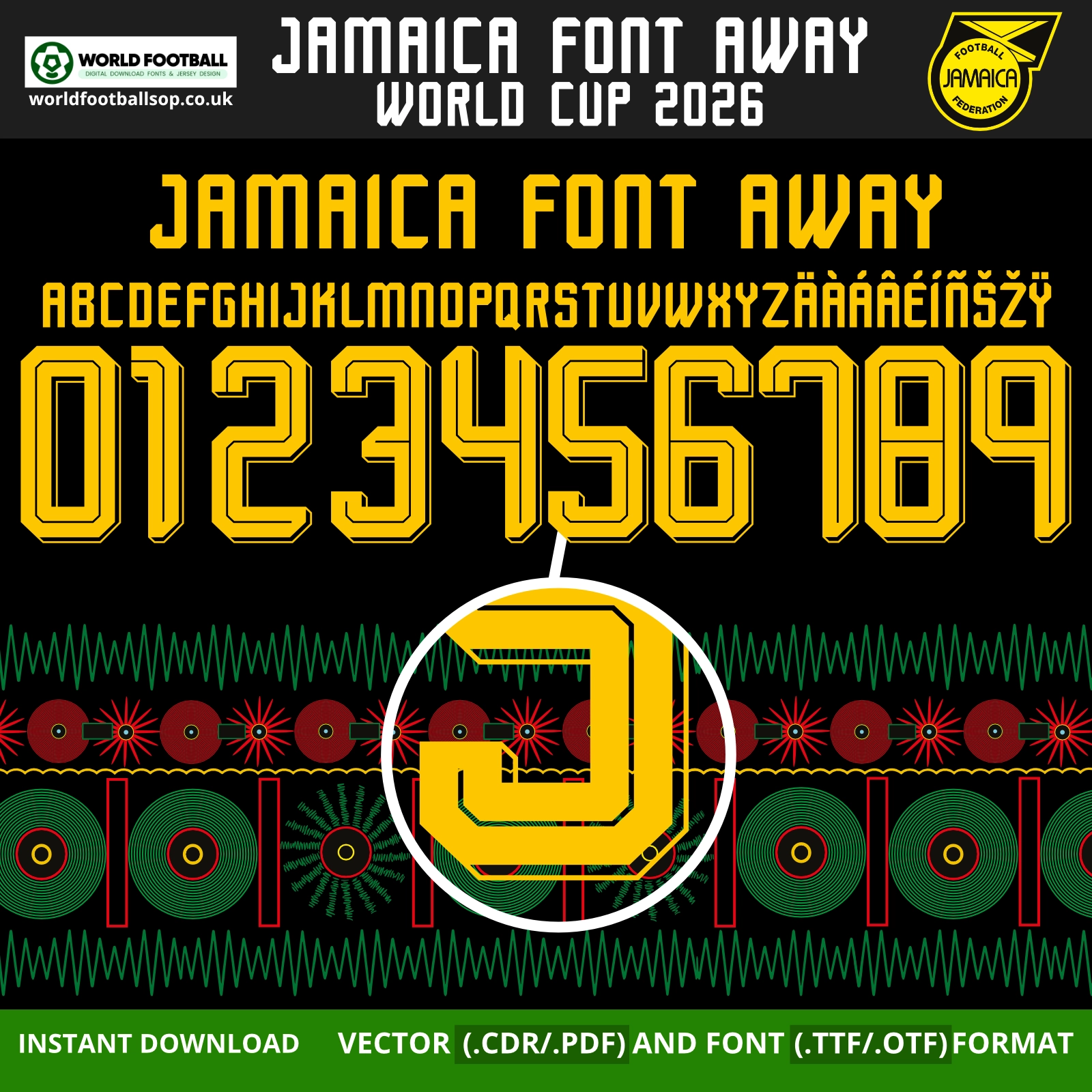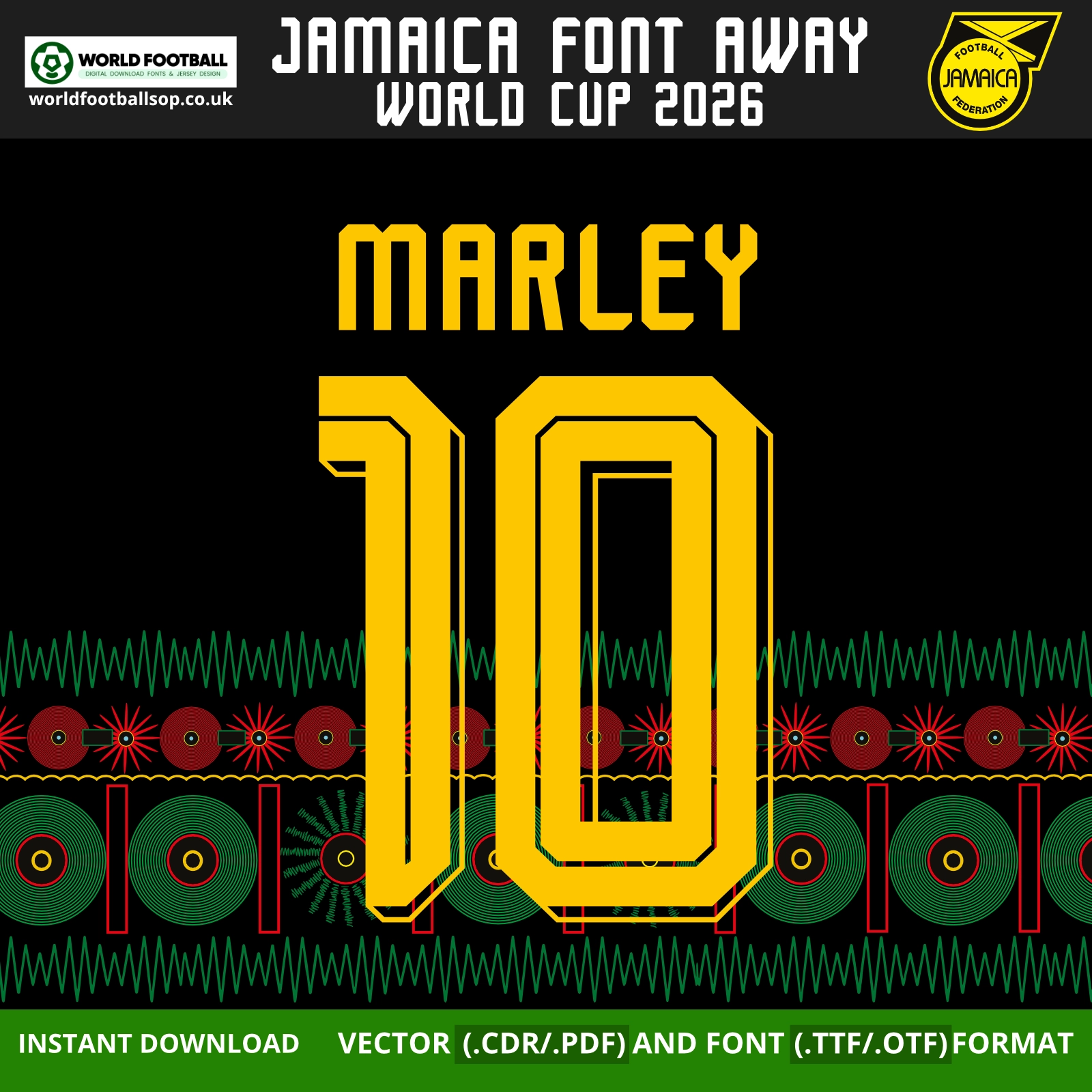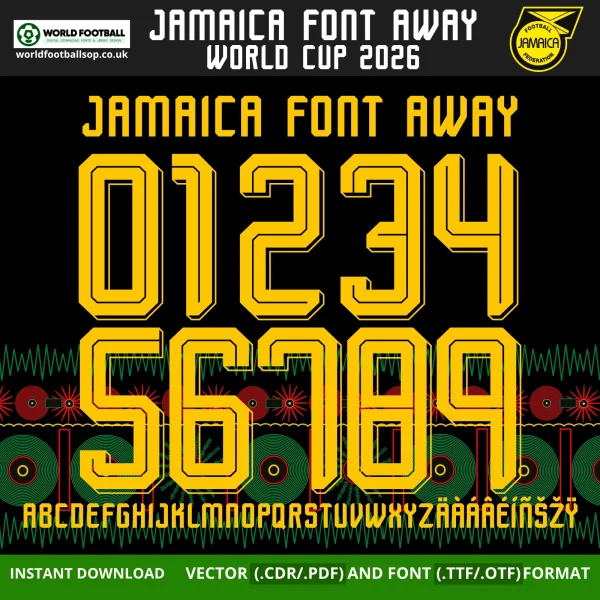
Jamaica Font Away World Cup 2026 – Tuff Gong Sound‑System Style
The Jamaica Font Away World Cup 2026 pack mirrors the bold typography used on Jamaica’s black Adidas away shirt for the 2026 tournament. The font features tall octagonal numbers with double‑line 3D outlines that echo the new Adidas 2026 World Cup away typeface, giving each digit a geometric, sound‑system feel. Set in bright gold on a deep black background filled with green, red and yellow speaker and sound‑wave graphics, the lettering perfectly matches the Bob Marley‑inspired kit.
Created for fans, printers and designers, this Jamaica 2026 away kit font lets you build authentic Reggae Boyz away namesets without official artwork. The vector numbers include a Jamaica Football Federation‑style crest at the base, while the TTF/OTF fonts stay clean for easy installation on any computer. Use it for “MARLEY 10”, custom names, posters, banners, thumbnails or any project that needs a loud Jamaican sound‑system aesthetic.
Full uppercase A-Z alphabet plus extended characters (Á Ä Â É Í Ń Š Ž, etc.) for international player names.
Numbers 0-9 in the Jamaica 2026 away kit style, ready for back, front or shorts printing.
Angular Adidas away font: Based on the new 2026 Adidas away kit typeface with sharp edges and layered line details, contrasting with the rounded home font.
Bob Marley tribute: Works with the black away kit that features record, cassette and sound‑wave graphics and a Tuff Gong‑inspired sign‑off at the collar.
Reggae Boyz energy: Strong gold on black colours and stacked outlines give numbers a vibrant, stadium‑ready impact for Jamaica’s Reggae Boyz and Reggae Girlz.